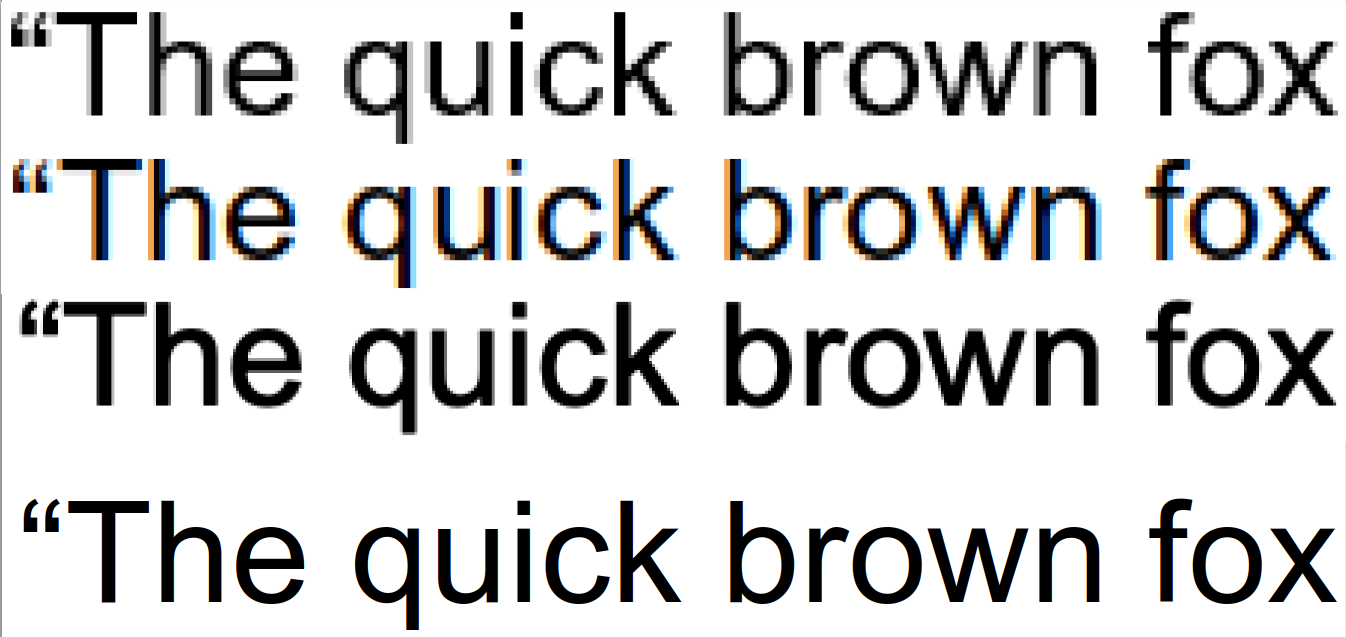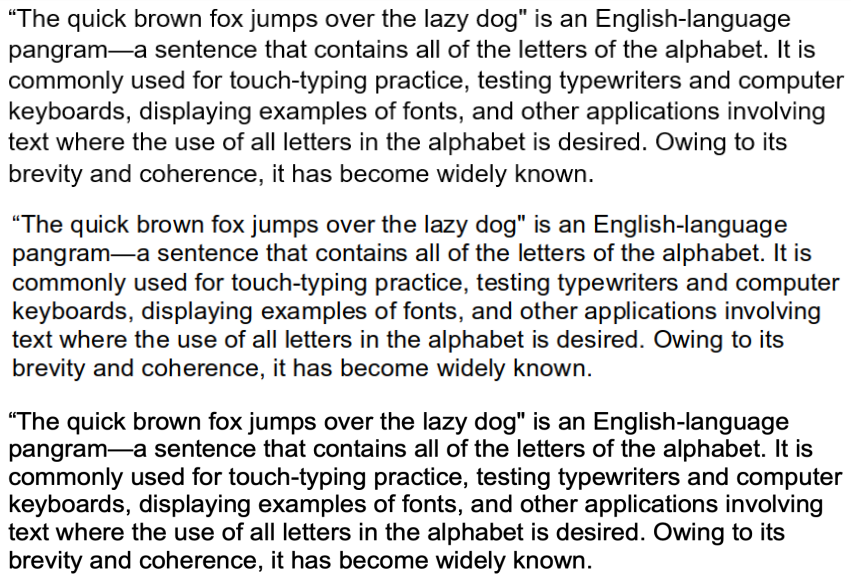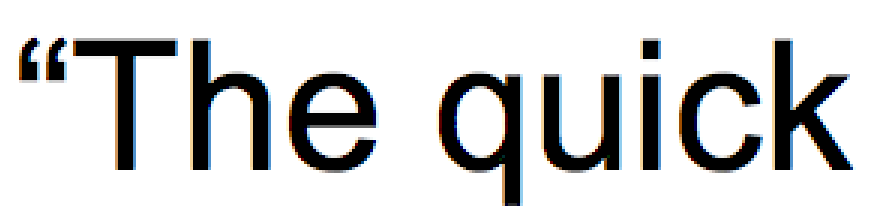
By framebuffer size I meant resolution, not depth. Where is says "Resolution" this is also referring to the framebuffer.
Sorry, this still isn't making sense to me. It sounds like you're trying to say that, if the listed resolution is twice the native screen resolution, then MacOS is doing supersampling. But I'm just guessing at what you're trying to say. It would be helpful if you could instead provide a link to a technical reference I could read on this.
I enabled HiDPI mode on my 38" Ultrawide and that took care of all font smoothing on Catalina. Is this not a better alternative than modifying font smoothing strength?
Are there expected changes in Big Sur which should further degrade the quality of text or remove any font smoothing commands? I'm experimenting with a change from a triple 4k display setup to a single Ultrawide. While the lower PPI is noticeable at first, it isn't as tragic as I expected.
I was previously using 27" displays scaled at 3008x1692 (127.82 PPI) and now I'm on a 38" Ultrawide at 3840x1600 (109.47). That's only a change of 18.35 PPI, but I definitely see a difference in some elements and text.
I recommend using a scaled resolution by the following trick:
Big Sur will probably automatically super-sample your screen (i.e. scale up 200% and then back down to 100%) which is nice. But if you are prepared to sacrifice a little space you can choose a nice mode in-between 2x scaling and 1x scaling which should made things sharper.
On a 1440p screen I have a 2048x1536 super-sampled mode which is sharper than 2560x1440 but has more space than a retina mode which would be 1280x720. This is effectively equivalent to Apple's "more space" option on a Macbook's internal screen, a type of compromise between retina and 1x scaling.
Sorry, this still isn't making sense to me. It sounds like you're trying to say that, if the listed resolution is twice the native screen resolution, then MacOS is doing supersampling. But I'm just guessing at what you're trying to say. It would be helpful if you could instead provide a link to a technical reference I could read on this.
As far as I know there is very little information on this. Certainly Apple just expects you to use their ecosystem so they're not going to explain what to do with a Dell monitor.
There is a little info here:
From what I figured out:
1) In HiDPI OS X always renders the desktop to a canvas which is double the resolution of your mode. The GPU then scales this down (or up) to the physical resolution of your monitor.
2) Before Big Sur this could be enabled manually, but now it seems to be the default.
3) Separate to the above, if you choose a resolution lower than your physical resolution each desktop element or font size is enlarged, and can therefore be represented by more pixels, so should be sharper. At a resolution half of your physical resolution (retina) it is sharpest as there is an exact pixel mapping.
4) If Apple had continued to use subpixel anti-aliasing then text would look fantastic using this approach. Unfortunately they don't so even the super-sampling trick doesn't beat a standard Linux or Windows desktop with subpixel AA. I suspect super-sampling + subpixel AA would provide too much of a performance hit, but that's only a guess. Obviously in the Apple ecosystem you don't need subpixel AA as you have a retina monitor!
I recommend using a scaled resolution by the following trick:
https://comsysto.github.io/Display-...or-with-HiDPI-Support-For-Scaled-Resolutions/
Big Sur will probably automatically super-sample your screen (i.e. scale up 200% and then back down to 100%) which is nice. But if you are prepared to sacrifice a little space you can choose a nice mode in-between 2x scaling and 1x scaling which should made things sharper.
On a 1440p screen I have a 2048x1536 super-sampled mode which is sharper than 2560x1440 but has more space than a retina mode which would be 1280x720. This is effectively equivalent to Apple's "more space" option on a Macbook's internal screen, a type of compromise between retina and 1x scaling.
This is exactly what I've been doing via https://github.com/avibrazil/RDM , but I just purchased a 38" Ultrawide and don't want to be shooting myself in the foot if Big Sur breaks the ability to make these changes. It would be unfortunate to find out the display is worse in a few months due to a technical change.
This is, I guess, the other approach. Design a font from scratch, designed for the screen, that scales well and fits into a small number of pixels whilst remaining legible. Apple have done some work here with their San Francisco font which comes in Display and text versions, optimised for large and small sizes respectively. Perhaps Big Sur improves on this with its optical sizing technology. Not managed to find much information on that so far...